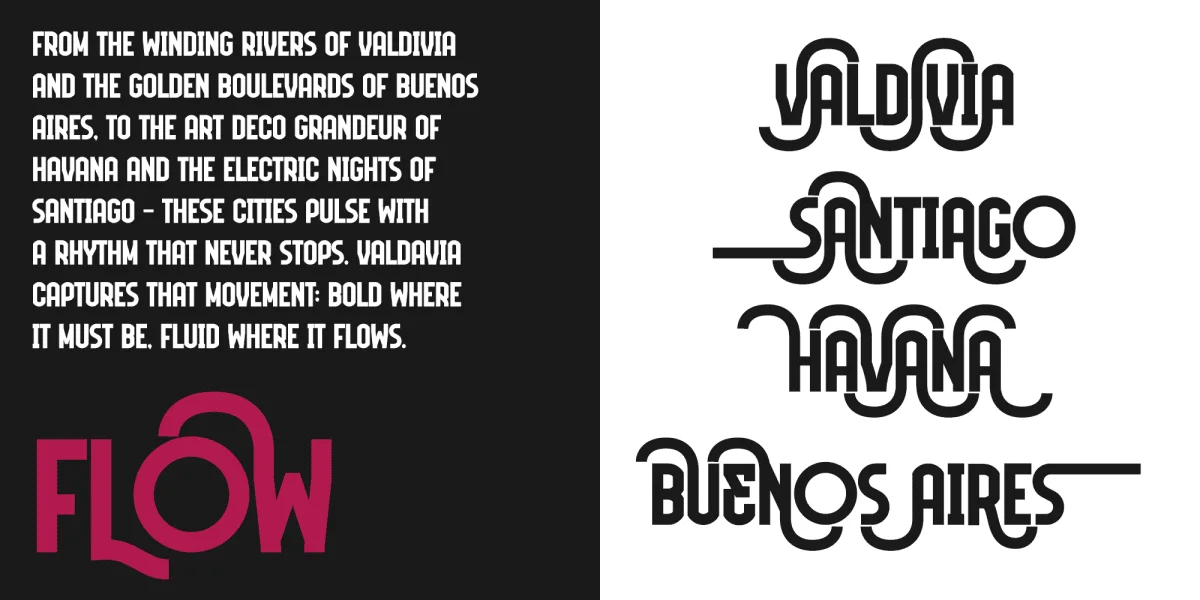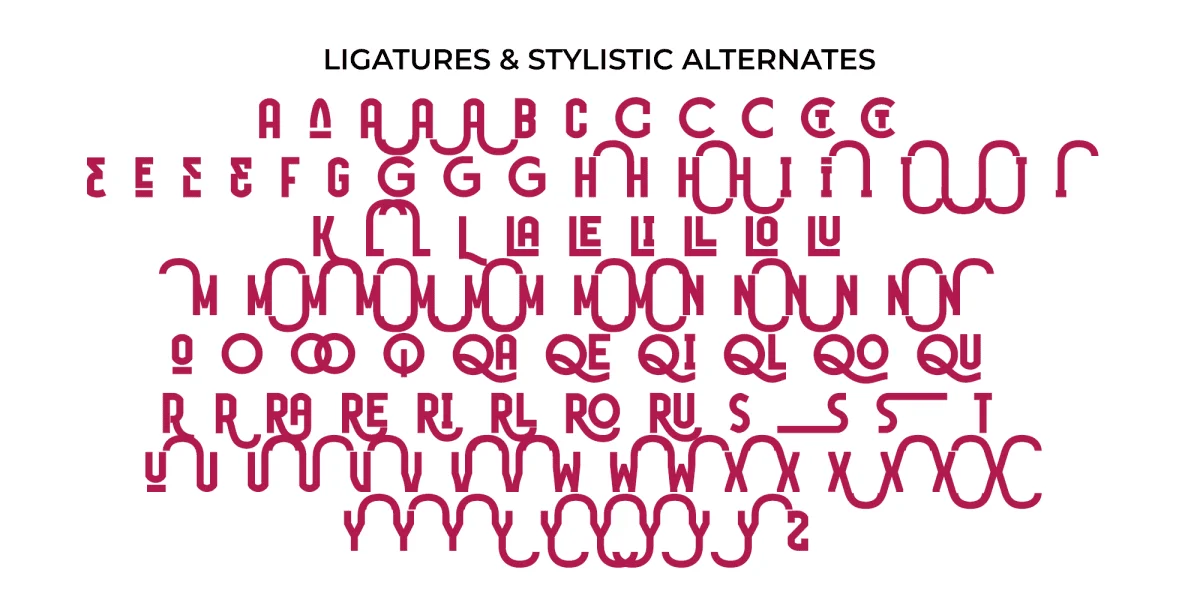
Valdavia is a hybrid display sans-serif typeface that seamlessly merges rigid, condensed geometric structures with fluid, looping ligatures. The core letterforms feature a tall, narrow posture with flat, blunt terminals and low-contrast, uniform line weights. This structural rigidity is punctuated by dramatic, undulating swashes and interconnected loops that weave between characters, creating a continuous, rhythmic wave-like motion across words. The juxtaposition of sharp vertical stems and sweeping, circular paths gives the typeface a distinct architectural yet kinetic quality.
Ideally suited for high-impact display environments, this typeface excels in editorial mastheads, music festival branding, and creative packaging designs. Its expressive, flowing ligatures and stylistic alternates allow designers to construct custom wordmarks and headlines that carry a sense of movement, making it a powerful choice for poster art, book covers, and identity systems looking to balance structured modernism with organic rhythm.